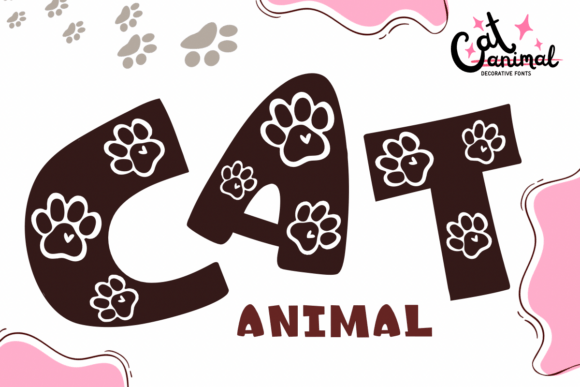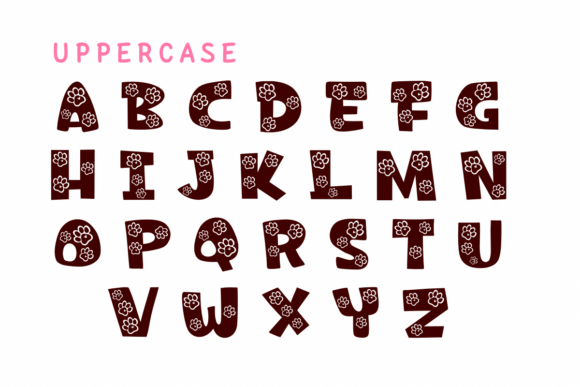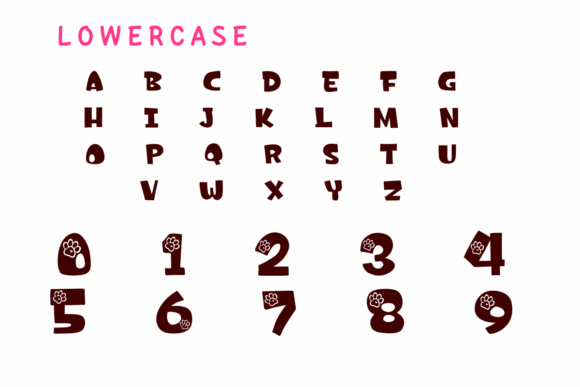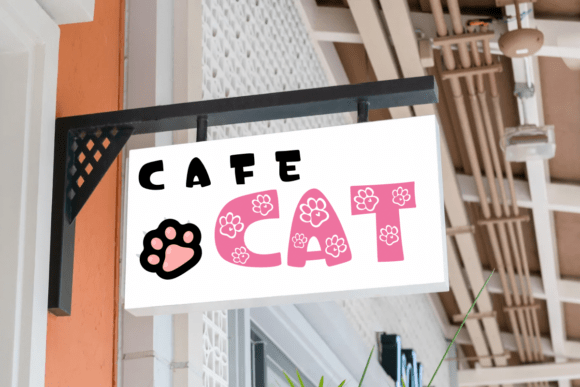
Cat Animal Font
About the Cat Animal Font
The Cat Animal Font is here to transform your projects with its distinctive character and style. Adorably paw-some! Cat Animal is a unique decorative font where each letter is filled with charming paw prints and playful heart details. It’s the purr-fect pick for kids’ designs, pet branding, or anything that needs a little feline flair.
Cat Animal Font Usage Examples
Cat Animal Font Example